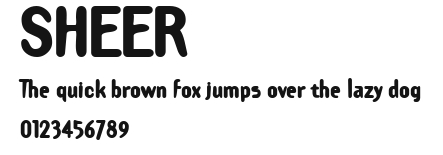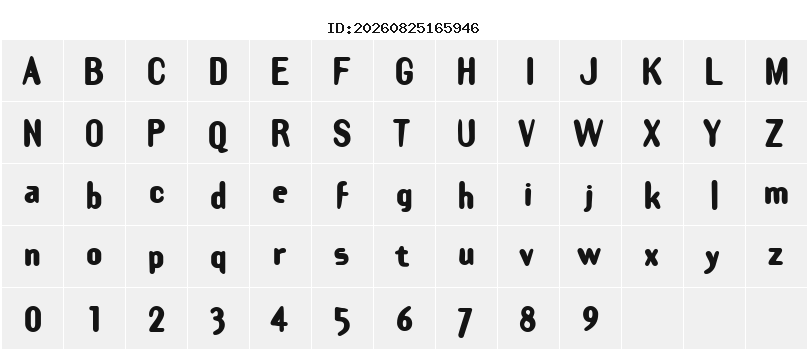
• Font Name: SHEER
• Font ID: Altsys Metamorphosis:SHEER Regular
• Full Font Name: SHEER Regular
• Version: Altsys Metamorphosis:11/15/97
• PostScript Name: SHEER-Normal
• Character Count: 215
About SHEER.ttf
SHEER.ttf is a modern, elegant sans-serif font designed for ultimate readability and visual harmony. Perfect for branding, headlines, web design, and print materials.